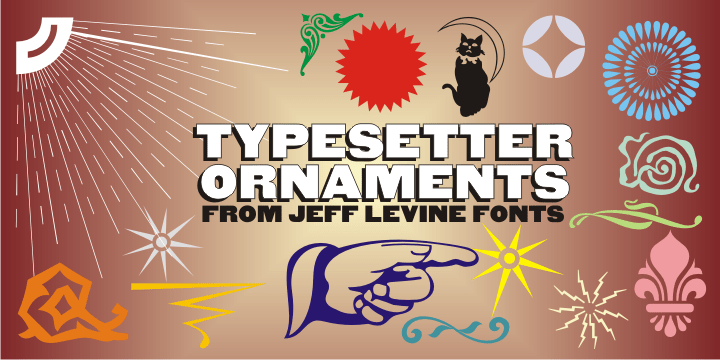
Typesetter Ornaments
The pages of vintage type foundry catalogs yield so much wonderful type design and artwork. Found within their pages are hundreds of classic text and display faces alongside delicately engraved cuts as well as print shop borders, ornaments and embellishments. These books are treasure troves of their respective times, and Typesetter Ornaments JNL preserves some of that art in digital form.
Redrawn from this source material are twenty-six basic design elements that include corner pieces, end pieces, pointing hands, spot illustrations and other designs.
Also included are old style parentheses, brackets, an Rx (prescription symbol), two cent signs and a few extra elements located on the number keys and their caps shift counterpoints.